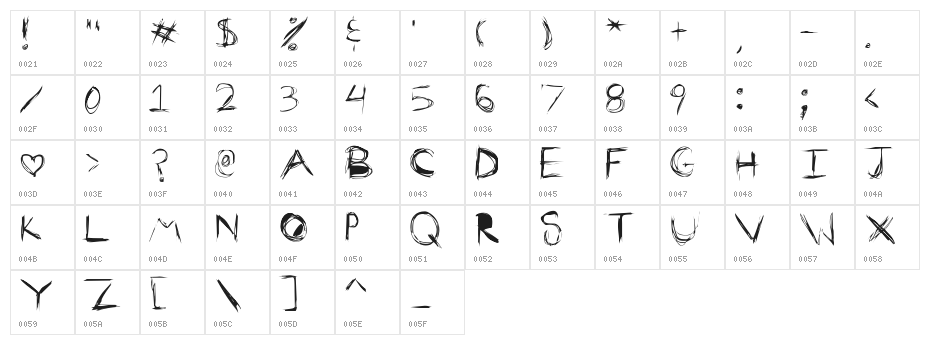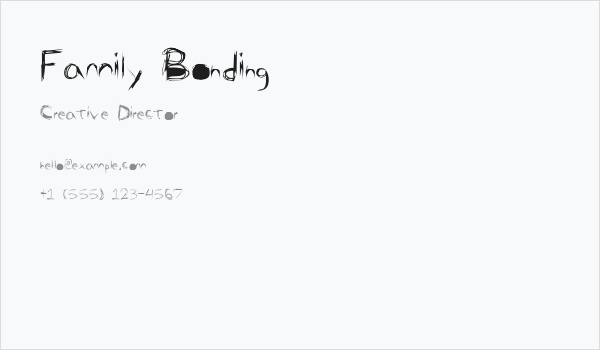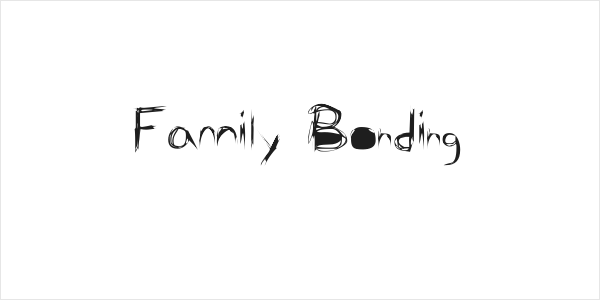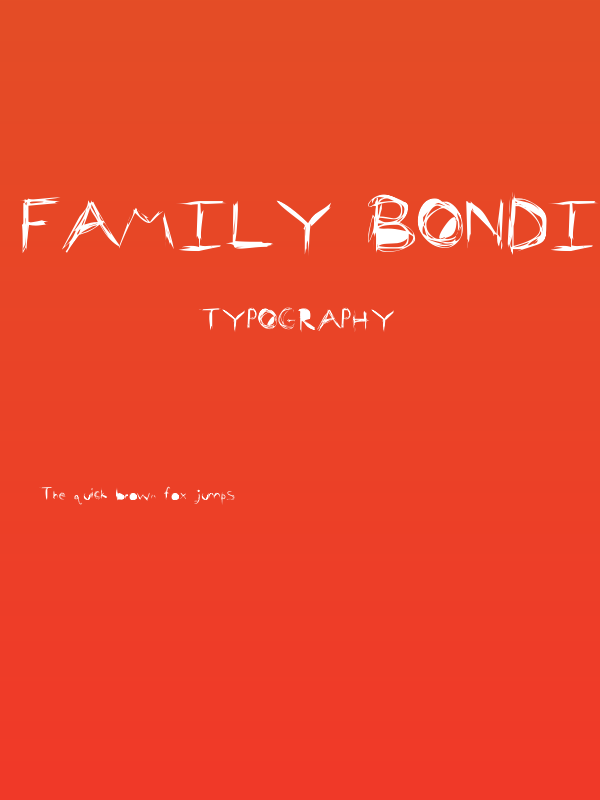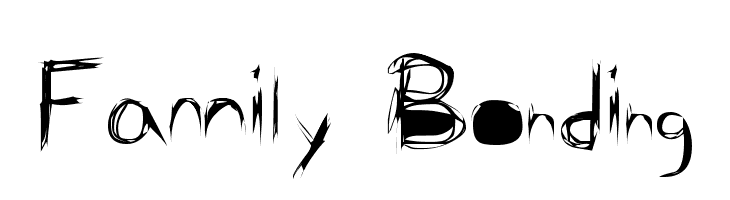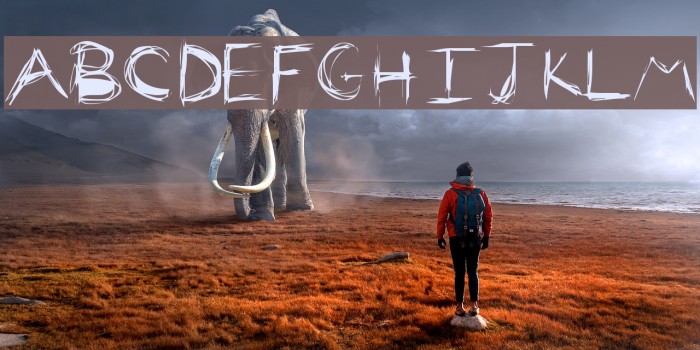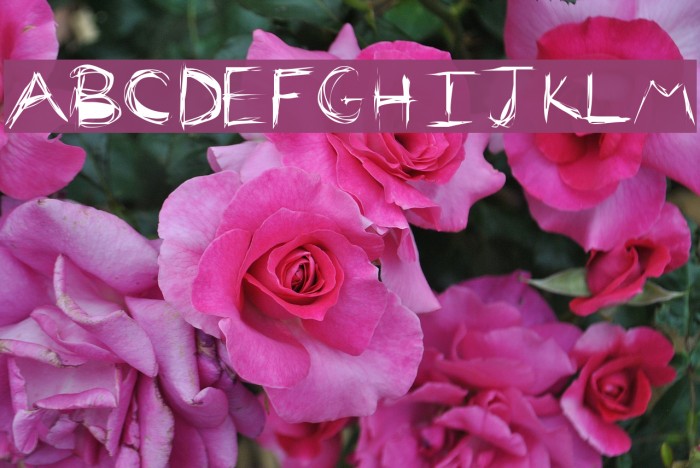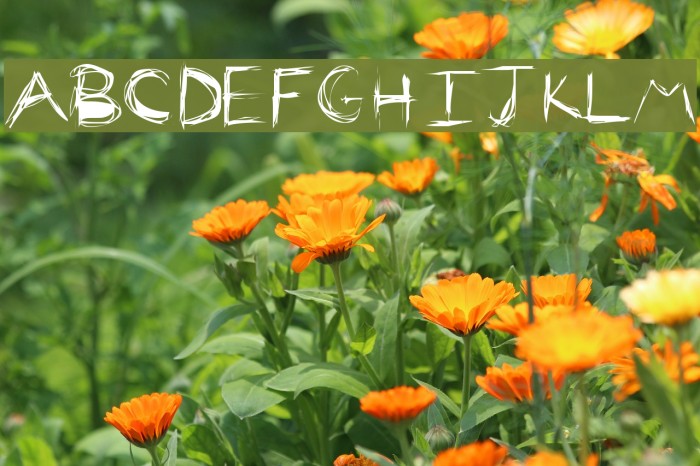
Family Bonding Font
Family Bonding Description
This font features a highly expressive and artistic design, characterized by its rough, sketch-like strokes that give it a hand-drawn appearance. The letters are irregular and dynamic, with varying thicknesses and angles, creating a sense of movement and energy. The uppercase and lowercase letters maintain a consistent style, while the numerals and special characters complement the overall aesthetic. This font's unique and edgy look makes it stand out, offering a creative and unconventional option for various design projects.
| Overall Style | Artistic |
| Use Case | Logos, Posters, Creative Branding |
| Proposed Projects | Ideal for artistic projects, album covers, posters, and creative branding. |